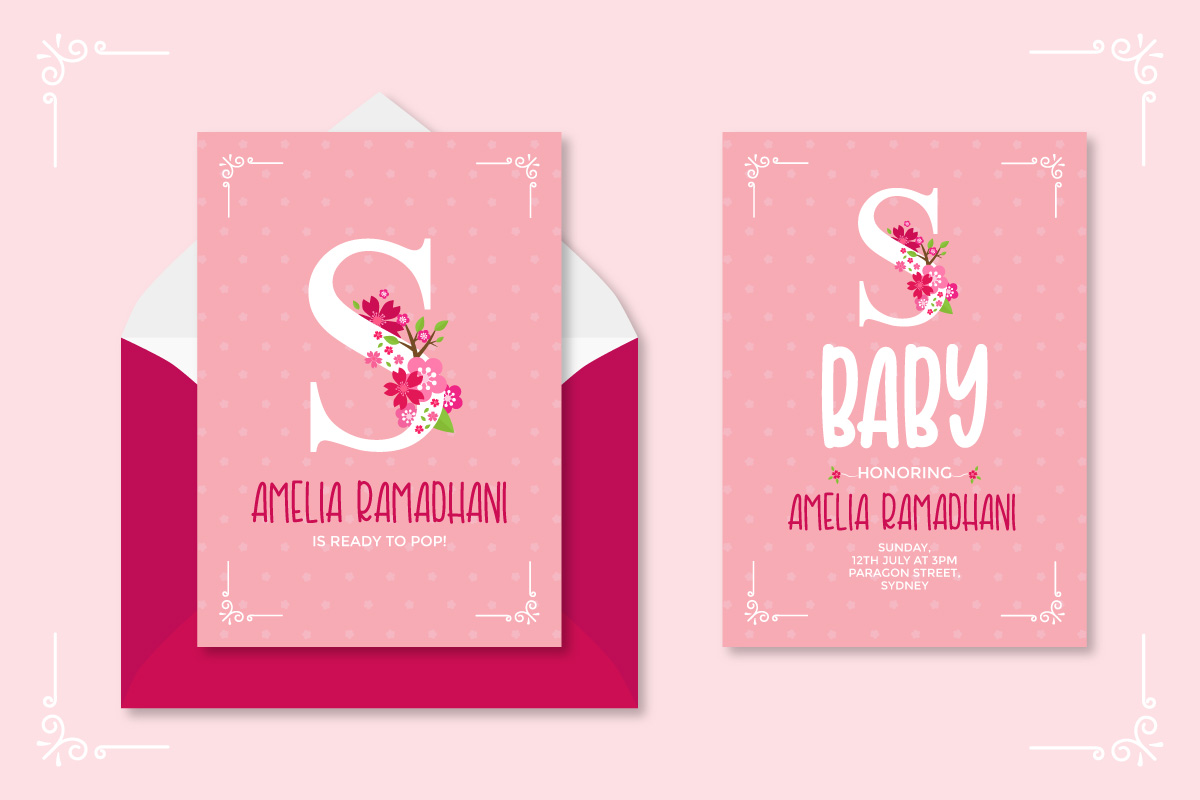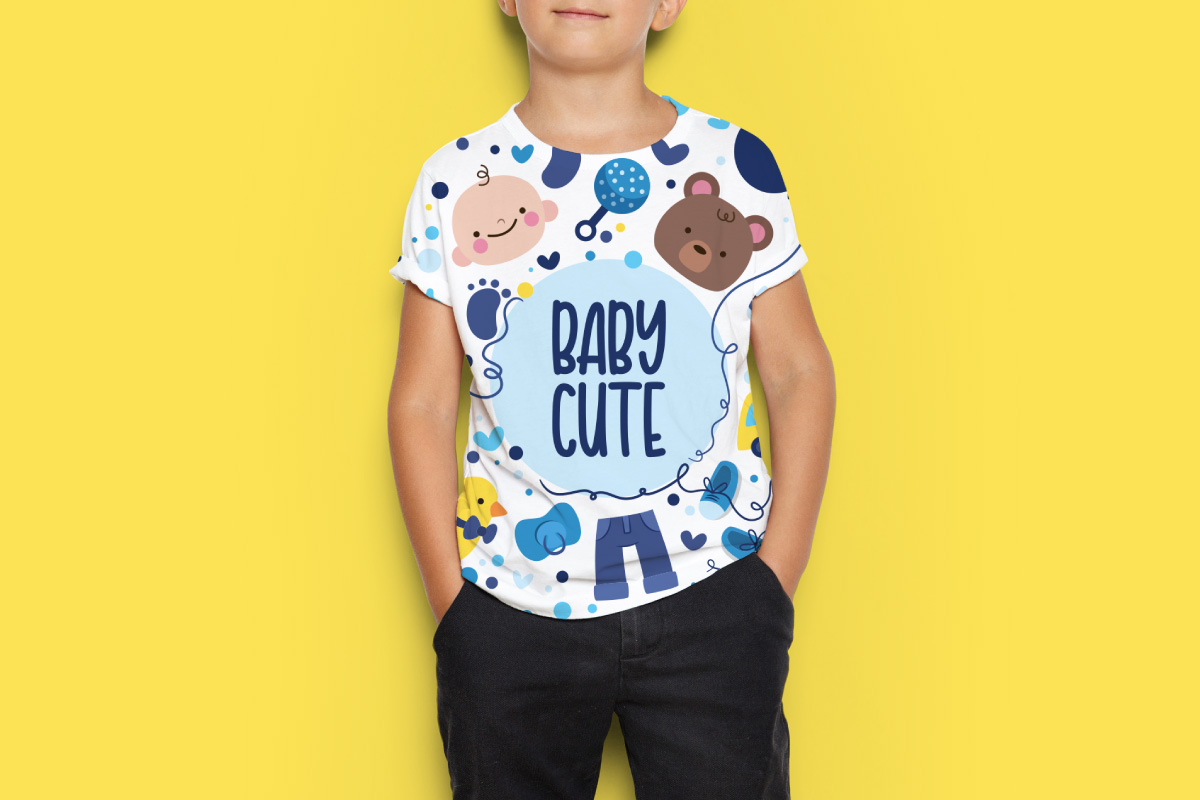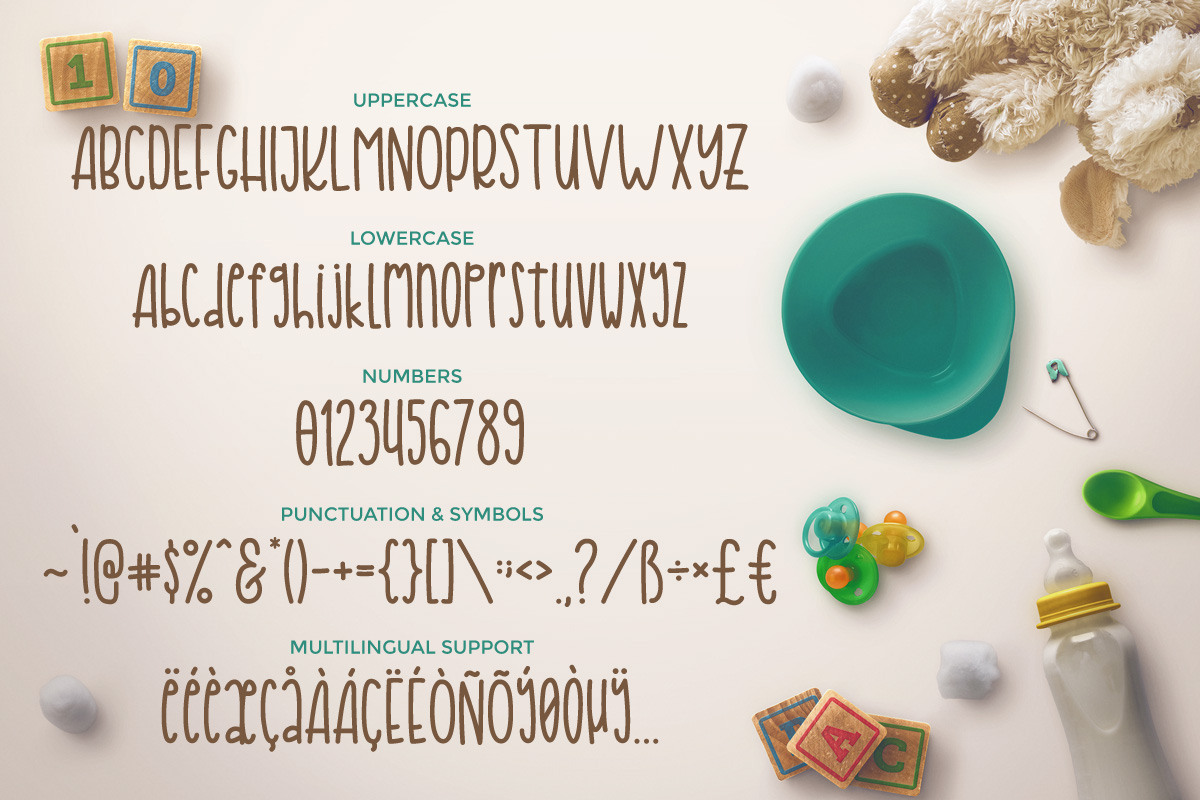
Young Love Font
About Young Love Font
Young Love is a brand new modern handwritten font.
It’s suitable for different types of branding and works well digitally and printed.